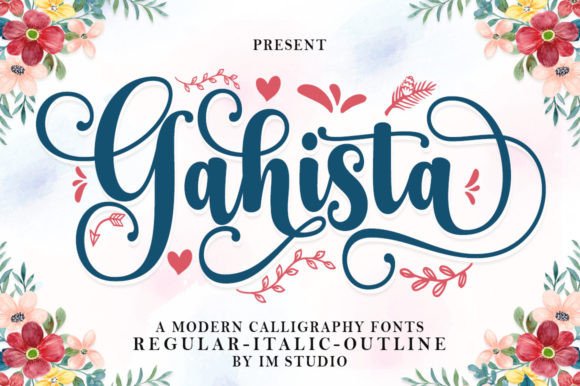
Looking for the best font for your shirt design? Look no further than Gahista Font, created by IM Studio. This stunning script font is the perfect choice for anyone looking to add a touch of elegance and sophistication to their projects.
With its delicate and flowing handwritten style, Gahista Font is sure to captivate your audience and leave a lasting impression. Its distinct and timeless design is perfect for a wide range of projects, from t-shirt designs to wedding invitations, logos, and more.
What sets Gahista Font apart is its incredible versatility. Whether you're designing for a modern, minimalist look or a more traditional, classic aesthetic, this font is the perfect choice. And with its PUA encoding, accessing all of the glyphs and swashes is easier than ever.
But what really sets Gahista Font apart is its emotional appeal. When you use this font in your designs, you'll be able to evoke feelings of elegance, sophistication, and timeless beauty. Your audience will be captivated by the flowing curves and graceful lines, and you'll be able to create truly spectacular designs.
So if you're looking for the perfect font for your shirt design or any other project, look no further than Gahista Font. With its eye-catching style, versatile design, and emotional appeal, it's the perfect choice for anyone who wants to create designs that truly stand out.